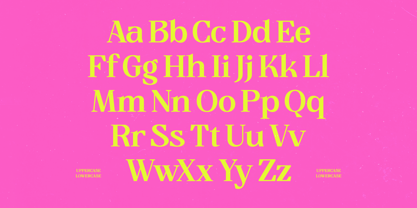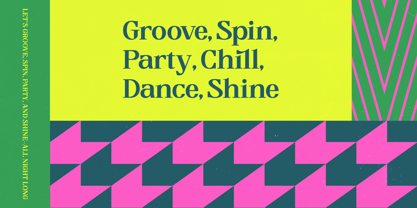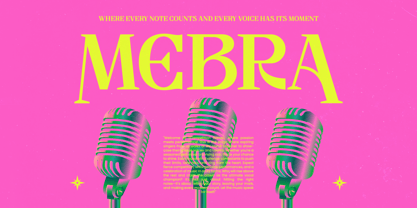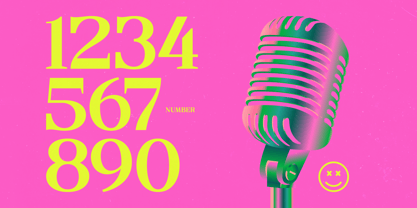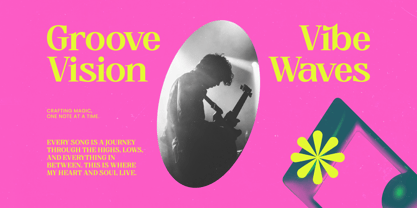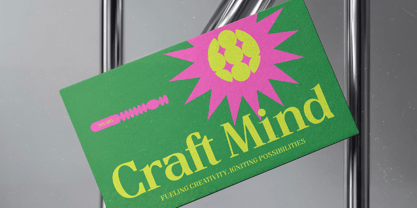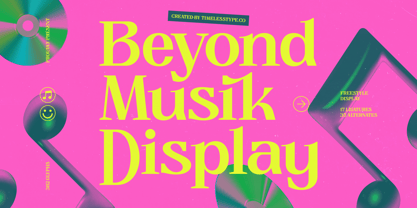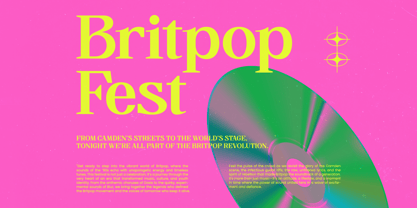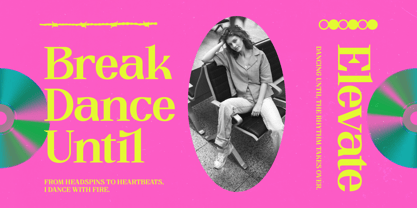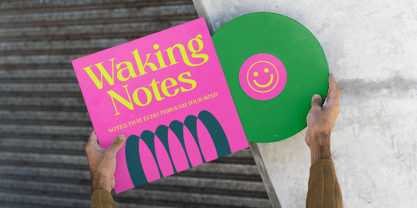
Beyond Musik
The Beyond Musik Font Family was designed by Heru Utama Putra and published by Timelesstype Studio. Beyond Musik contains 2 styles and family package options. More about this family
Beyond Musik Display is a bold freestyle display typeface designed to make a vibrant and unforgettable statement. Featuring strong serif forms with playful proportions and dynamic personality, this font blends retro-inspired energy with modern visual impact. Its confident structure and expressive curves make it ideal for music branding, posters, album covers, event promotions, fashion campaigns, social media graphics, and eye-catching headlines. With 17 ligatures and 35 alternates, Beyond Musik Display offers versatile character combinations that enhance creative layouts and add distinctive flair to every design. Perfect for projects that demand bold typography and high visual contrast, this typeface delivers fun, expressive, and trend-forward aesthetics across both print and digital platforms.